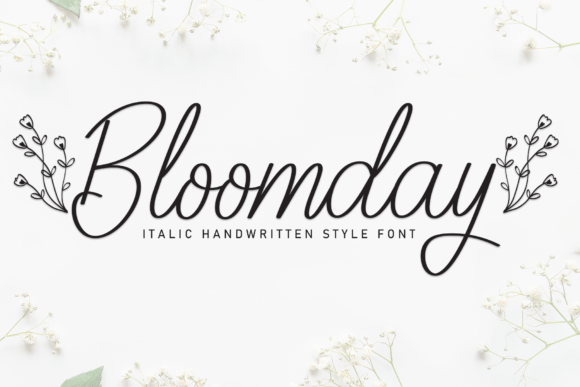
Behold, Bloomday Font – a captivating creation that dances off the page with its enchanting allure. Step into a realm of script fonts where elegance and whimsy intertwine, creating a visual symphony. Bloomday Font is a testament to William Jhody's artistic genius, blooming with unique flourishes and sweeping letterforms. It's not just a font; it's an experience.
With Bloomday Font adorning your digital creations, watch as projects blossom with an aura of charm and sophistication. Whether it's a greeting card, an invitation, or a design that breathes femininity, Bloomday Font is your artistic ally. Its delicate curves and flowing strokes infuse your work with an ethereal grace, leaving an everlasting impression.
Picture the joy on your loved ones' faces as they receive greetings penned in the enchanting embrace of Bloomday Font. Imagine their eyes sparkling with delight as they witness words dance and twirl on the page, conveying your heartfelt sentiments. With this font, your messages become more than mere communication; they become works of art.
Let Bloomday Font unleash your inner creativity, transforming ordinary designs into exquisite masterpieces. Its charming presence adds a touch of floral beauty to every project, captivating your audience with its timeless elegance. Be it a fashion label, a product catalog, or a personal journal, Bloomday Font imbues it with an allure that speaks to the senses.
With Bloomday Font, you embark on a journey of aesthetic exploration. Discover a font that complements your vision, allowing your imagination to flourish and ideas to bloom. Its versatility shines across a spectrum of projects, seamlessly adapting to your ever-changing creative needs.
Experience the magic of Bloomday Font today. Let this whimsical typeface awaken your designs, adding a touch of enchantment and artistry to every word and letter. Bloomday Font is more than a font; it's an invitation to create, to dream, and to leave an indelible mark on the digital canvas.